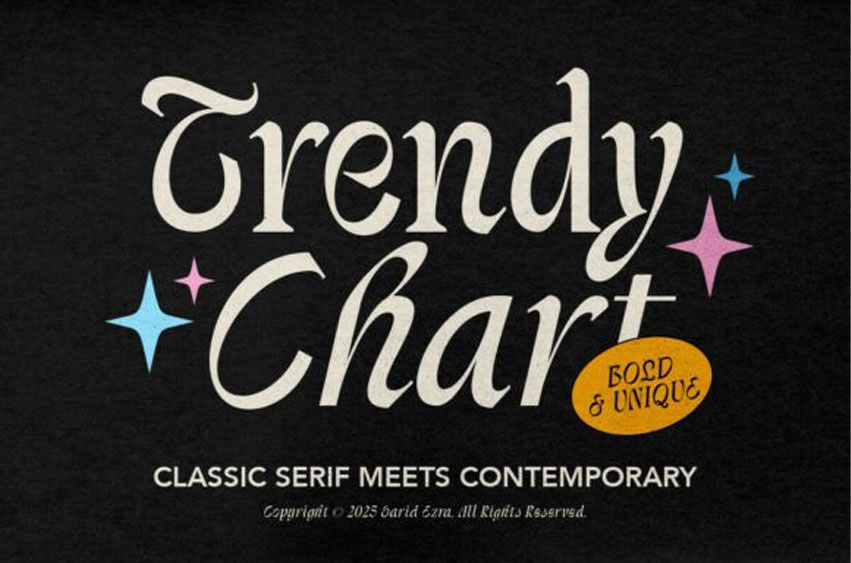
Trendychart Regular Font
Trendychart Regular Font is a stylish and unique, bold font based on serif. With the bold and uncommon shapes, this font will make your design and project look more stunning and stand out.
Trendy Chart font comes with the Italic version that will make your design even more eye-catching when you combine it. Trendy Chart also supports multiple languages.